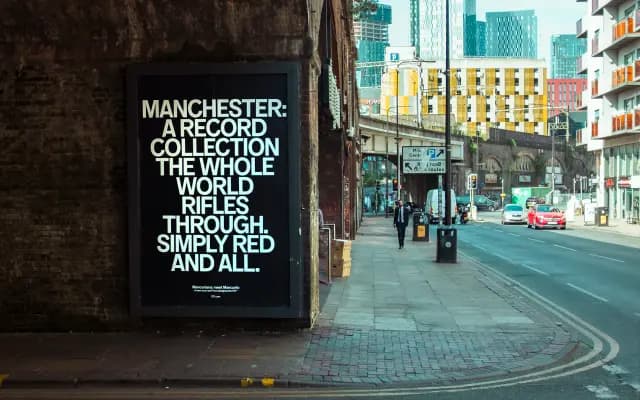
F37 Mancunio
A thirty-six style grotesque inspired by a surviving wooden street sign in Manchester, with full standard and condensed widths.
F37 Mancunio is a grotesque sans Rick Banks drew from one of the last original wooden street signs in Manchester, named for the Roman fort of Mamucium. The family runs to thirty-six styles, nine weights from Thin to Black with matching italics, and a Condensed width at the same depth, so it can carry an entire identity system from caption text to billboard. F37 use it on city-of-Manchester references and pair it with serifs like F37 Bella; sits naturally in editorial, music, sport and cultural-institution work where you want a confident British grotesque voice.
F37 describe Mancunio as inspired by one of the last original wooden street signs in Manchester, named for the Roman fort of Mamucium. A large thirty-six style grotesque with nine weights from Thin to Black and matching italics, plus a full Condensed width at the same depth.